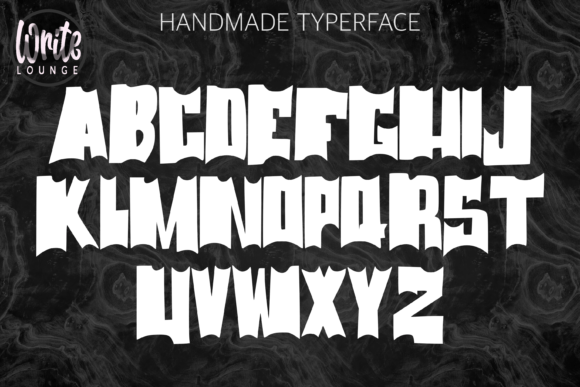
Introducing Beton Asphalt Font: The Ultimate Display Font for Crafty Projects
Are you a designer or crafter looking for a unique and bold font to elevate your projects? Look no further than Beton Asphalt Font! This cool, bold, and rough display font is perfect for a wide range of crafting ideas, from t-shirts to posters, branding materials, labels, and much more.
What is Beton Asphalt Font?
Beton Asphalt Font is a display font designed to add a touch of ruggedness and edginess to your projects. Its bold and rough texture gives it a unique character that sets it apart from other fonts. The font’s design is inspired by the rough, textured look of asphalt and concrete, making it perfect for projects that require a urban, industrial, or distressed look.
Features of Beton Asphalt Font
Beton Asphalt Font comes with a range of features that make it a versatile and practical choice for designers and crafters. Some of its key features include:
- Bold and Rough Texture: The font’s bold and rough texture gives it a unique character that adds depth and interest to your projects.
- High-Quality Design: The font is designed with high-quality and precision, ensuring that it looks great in any size or application.
- Wide Range of Uses: Beton Asphalt Font is perfect for a wide range of crafting ideas, from t-shirts to posters, branding materials, labels, and much more.
- Easily Customizable: The font is easily customizable, allowing you to adjust the size, color, and style to fit your project’s needs.
Uses of Beton Asphalt Font
Beton Asphalt Font is a versatile font that can be used in a wide range of projects, including:
- T-Shirts and Apparel: Add a bold and edgy touch to your t-shirts and apparel with Beton Asphalt Font.
- Posters and Flyers: Create eye-catching posters and flyers with Beton Asphalt Font’s bold and rough texture.
- Branding Materials: Use Beton Asphalt Font to create unique and memorable branding materials, such as logos, business cards, and brochures.
- Labels and Packaging: Add a touch of industrial chic to your labels and packaging with Beton Asphalt Font.
Why Choose Beton Asphalt Font?
So why choose Beton Asphalt Font for your projects? Here are just a few reasons:
- Unique and Eye-Catching: Beton Asphalt Font is a unique and eye-catching font that will add a touch of edginess to your projects.
- High-Quality Design: The font is designed with high-quality and precision, ensuring that it looks great in any size or application.
- Versatile: Beton Asphalt Font is a versatile font that can be used in a wide range of projects, from t-shirts to posters, branding materials, labels, and much more.
In conclusion, Beton Asphalt Font is a cool, bold, and rough display font that is perfect for designers and crafters looking to add a touch of edginess to their projects. With its unique texture, high-quality design, and versatility, Beton Asphalt Font is a great choice for a wide range of crafting ideas. So why not give it a try and see how it can elevate your projects?